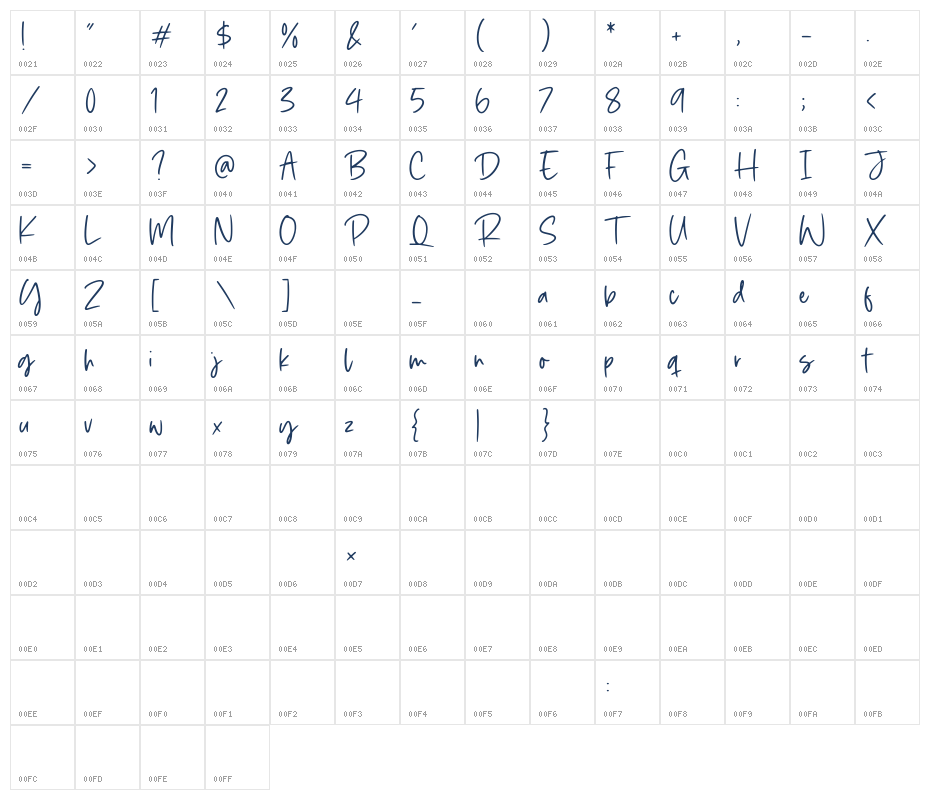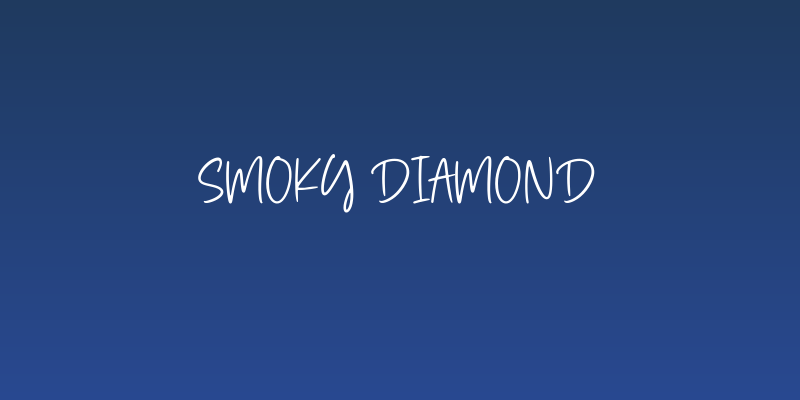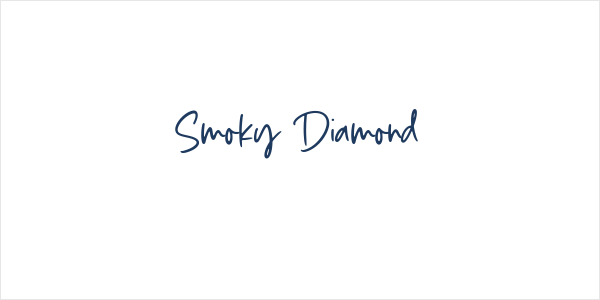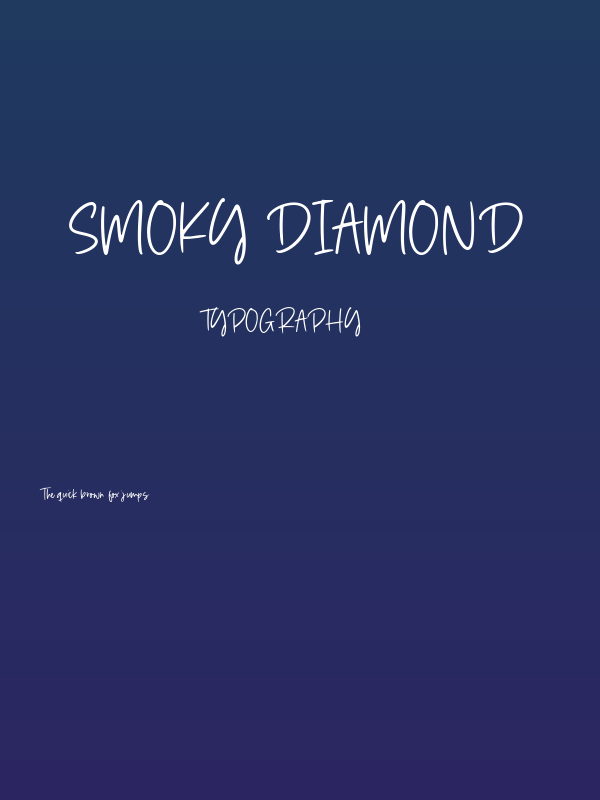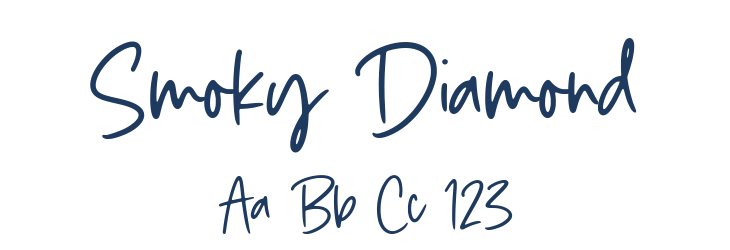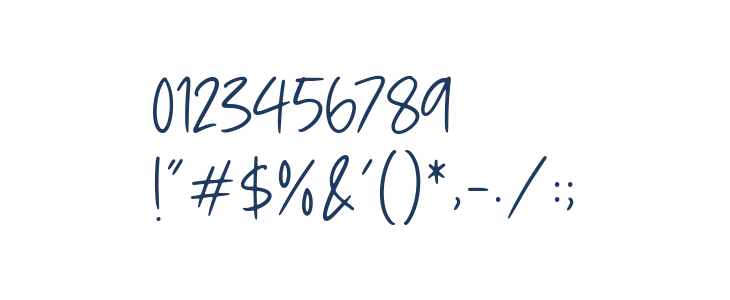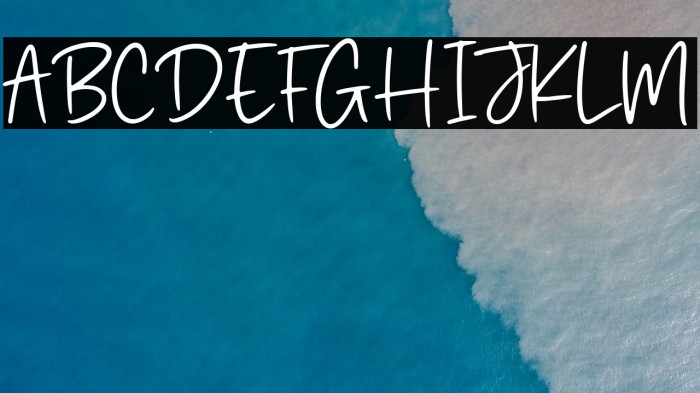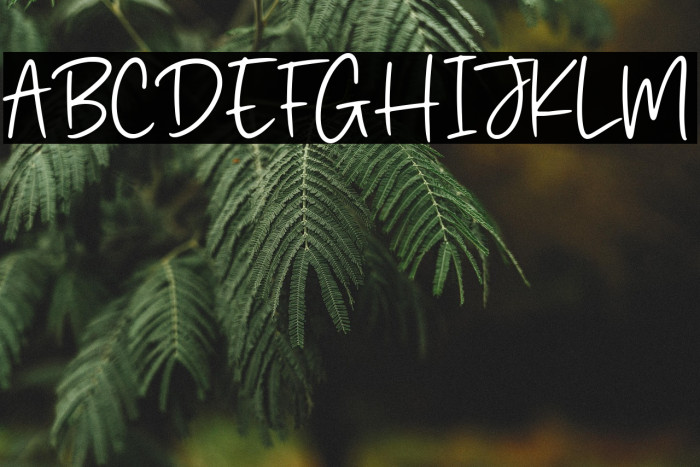
Smoky Diamond Font
Smoky Diamond Description
A casual, handwritten script font with a playful and informal style, featuring slightly irregular strokes and a smooth flow.
| Overall Style | Casual, Handwritten, Playful |
| Use Case | Headlines, Body text, Logos, Personal projects |